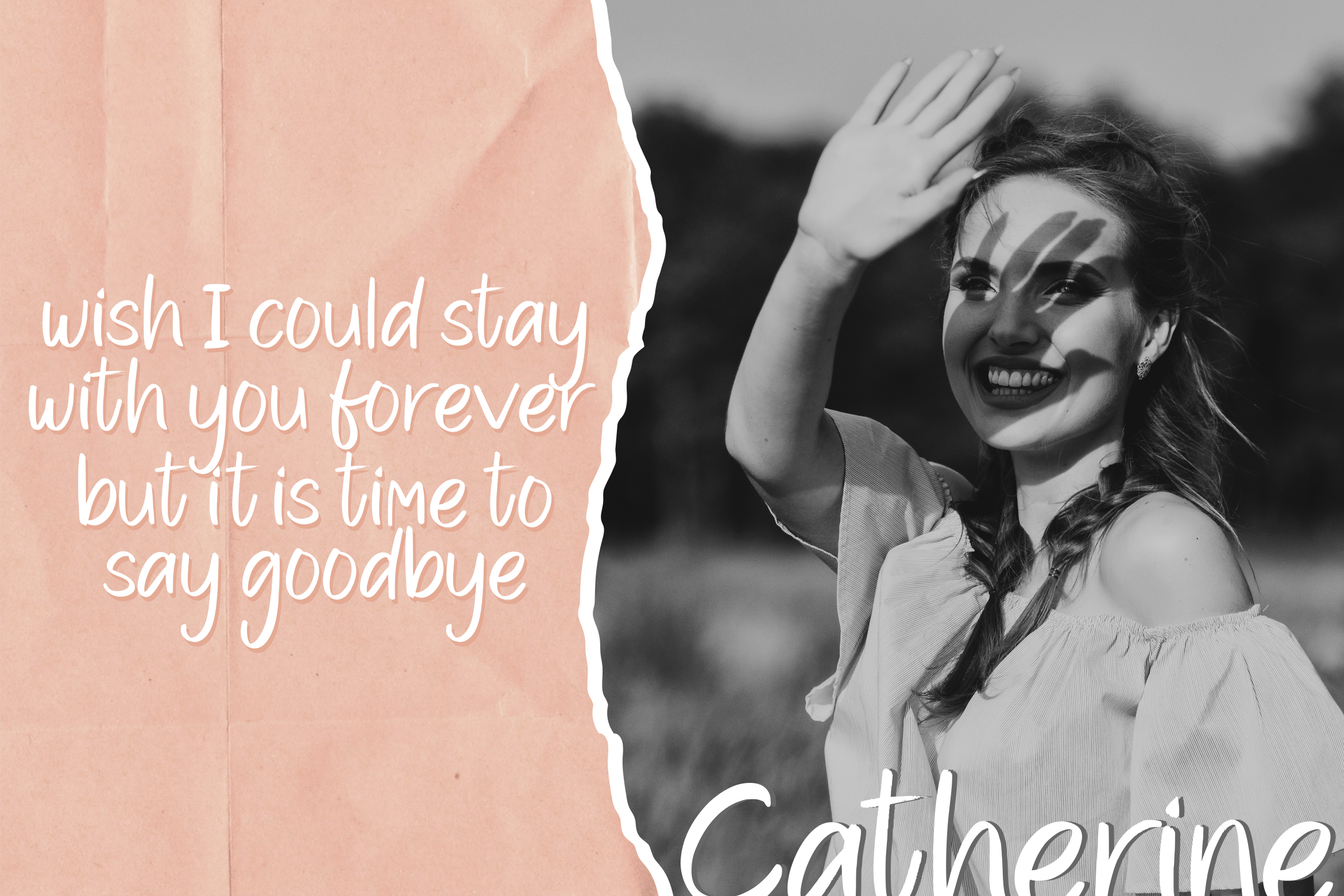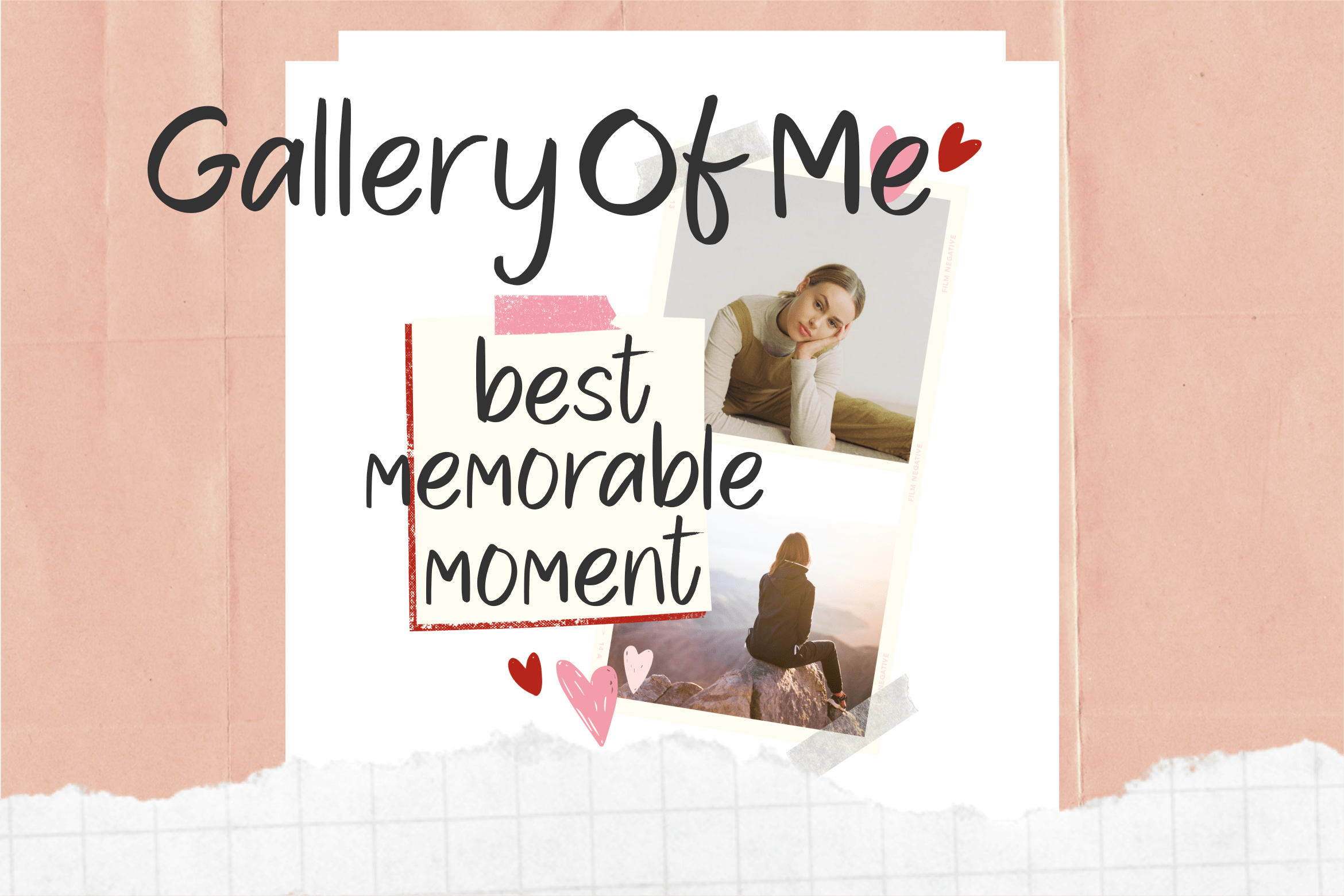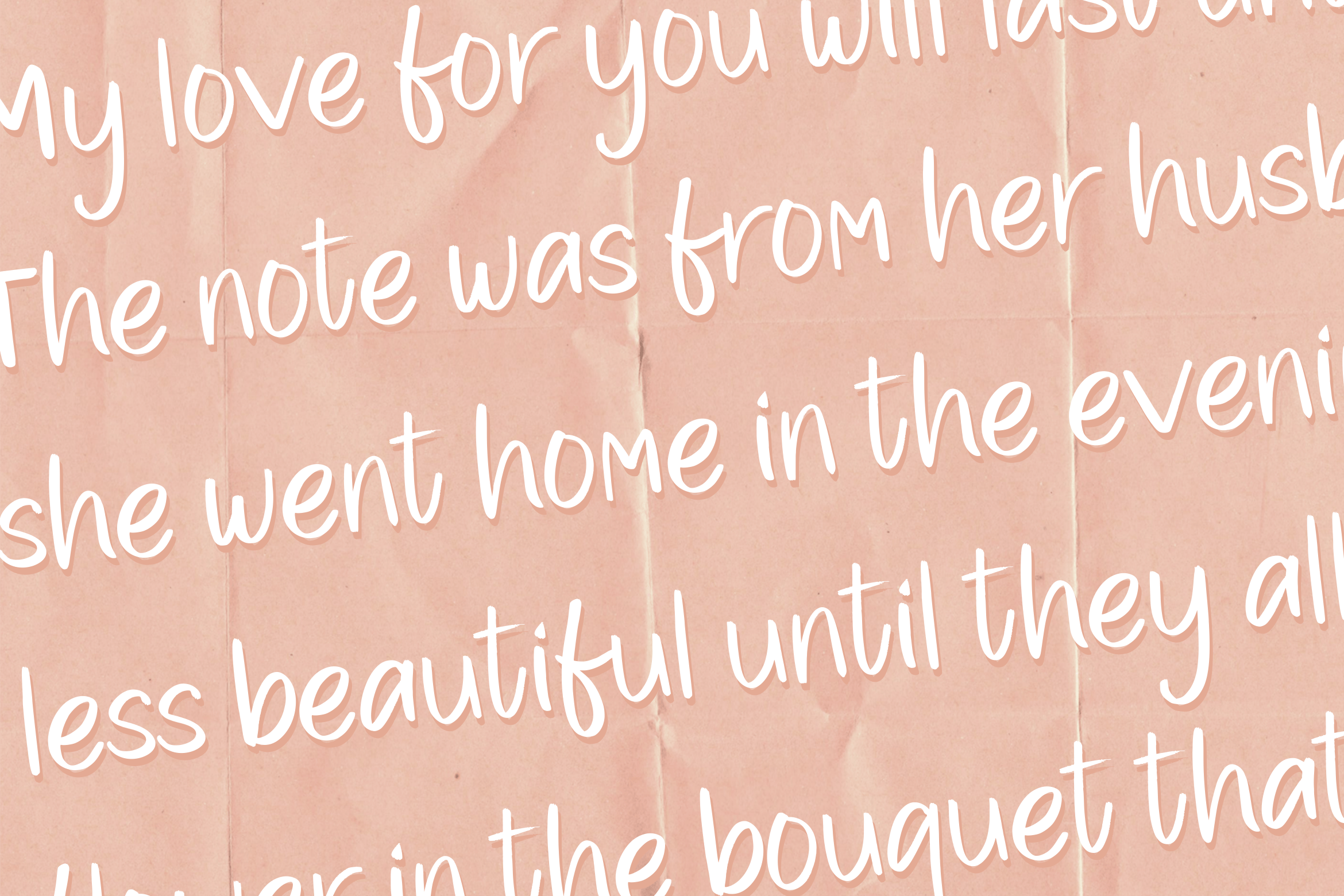
Stalshine Font
Stalshine Script Font
It’s a flowing, display font, described with a touch of elegance, perfect for your favorite projects. Fall in love with its completely different and timeless style and can use it to create wall designs, logos, wedding invitations, stationery, product labels, photography and much more.